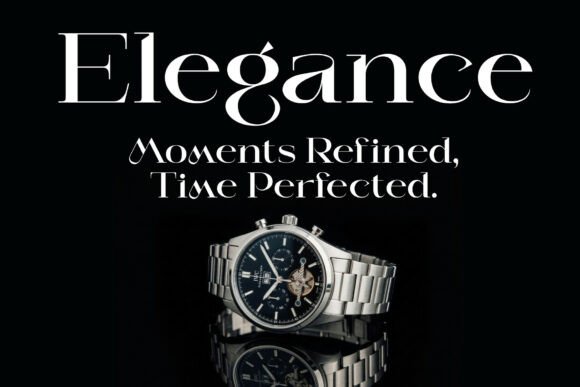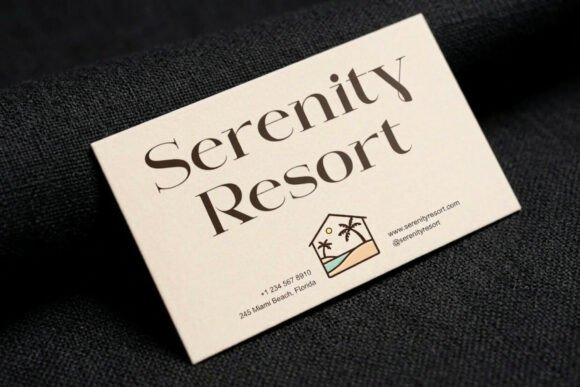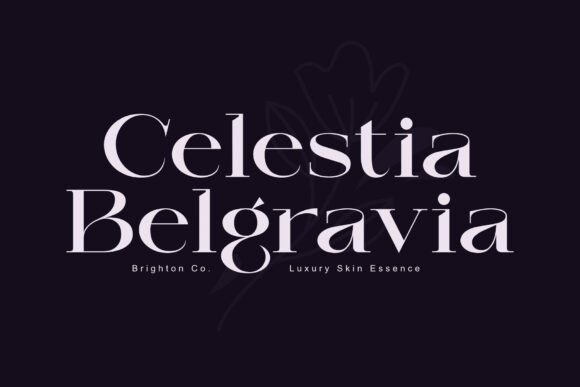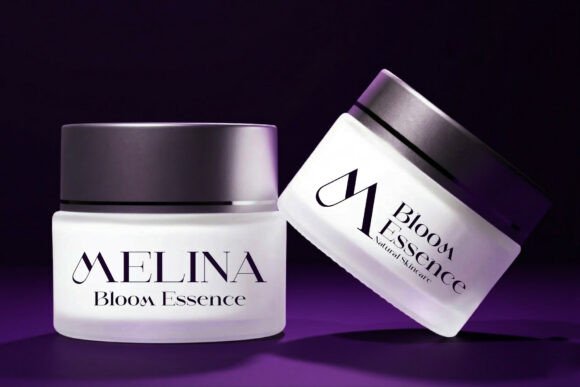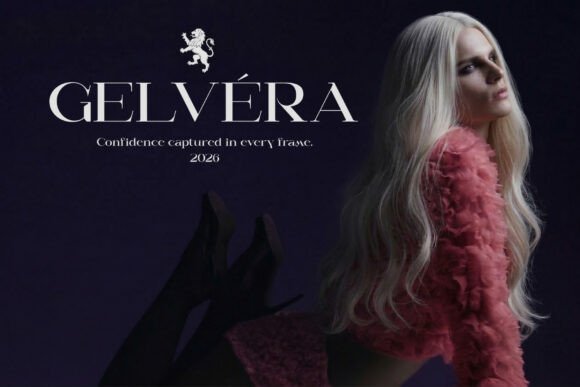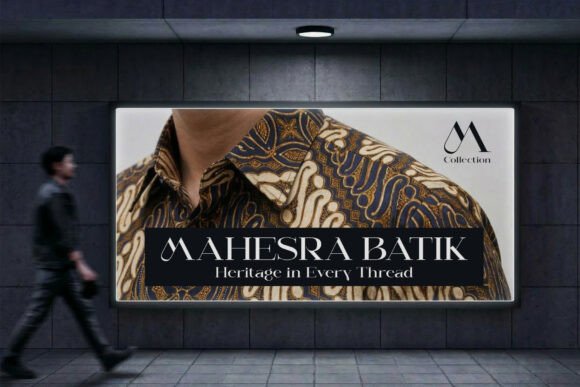
Introducing Asmake Font: Elevate Your Design with Modern Serif Elegance
In the world of typography, fonts play a pivotal role in shaping the visual identity of a brand, product, or editorial content. Among the myriad of fonts available, Asmake stands out as a modern serif font that has been meticulously crafted for logos, editorial layouts, and branding projects. This article delves into the nuances of the Asmake font, exploring its design characteristics, versatility, and the unique value it offers to designers and crafters.
The Essence of Asmake Font
Asmake is not just another serif font; it’s a blend of classic elegance and contemporary design. Its refined curves and clean, timeless style strike a perfect balance between traditional and modern aesthetics. This balance is crucial for designers aiming to create a visual identity that resonates with a wide audience while maintaining a sophisticated appeal.
The Asmake font boasts several design characteristics that set it apart:
- Refined Curves: The curves in Asmake are meticulously designed to provide a smooth and fluid look, enhancing readability and visual appeal.
- Clean and Timeless Style: The font’s clean lines and timeless style ensure that it remains relevant across various design projects, from contemporary branding to traditional editorial layouts.
- Carefully Crafted Serif Details: The serif details in Asmake are designed to add a touch of elegance and sophistication, making it suitable for high-end branding, packaging, and lifestyle visuals.
Versatility of Asmake
One of the key strengths of the Asmake font is its versatility. It is designed to be adaptable across a range of applications, including:
- Logos: Asmake’s unique blend of modern and classic elements makes it an excellent choice for logos that need to stand out yet convey a sense of tradition or reliability.
- Editorial Layouts: For magazines, newspapers, and digital publications, Asmake offers a clear and readable format that enhances the reader’s experience.
- Branding Projects: Whether it’s for product packaging, corporate branding, or advertising, Asmake provides a consistent and professional look that can elevate a brand’s visual identity.
- Lifestyle Visuals: The font’s elegant appearance makes it suitable for lifestyle photography and visuals where a touch of sophistication is desired.
The Value of Asmake for Designers and Crafters
Asmake offers several benefits to designers and crafters:
- Clarity and Consistency: Each character in the Asmake font is designed to deliver clarity and consistency, ensuring that the message is conveyed effectively and professionally.
- Strong Visual Presence: The carefully crafted details of Asmake ensure that it commands attention and creates a lasting impression, which is crucial for any design project.
- Time-Saving: With Asmake, designers have a versatile and reliable font at their disposal, saving time in searching for the perfect typeface and allowing more focus on the creative process.
Asmake is more than just a font; it’s a design tool that bridges the gap between classic elegance and modern sophistication. Its versatility, combined with its refined design characteristics, makes it an invaluable asset for designers and crafters working on logos, editorial layouts, branding projects, and lifestyle visuals. By incorporating Asmake into their projects, designers can achieve a balanced look that is both timeless and contemporary, ensuring their work stands out in a crowded design landscape.
Whether you’re a professional designer or a crafter looking to elevate your visual projects, Asmake font is a choice worth considering. Its ability to convey clarity, consistency, and a strong visual presence makes it a powerful tool in the world of design.